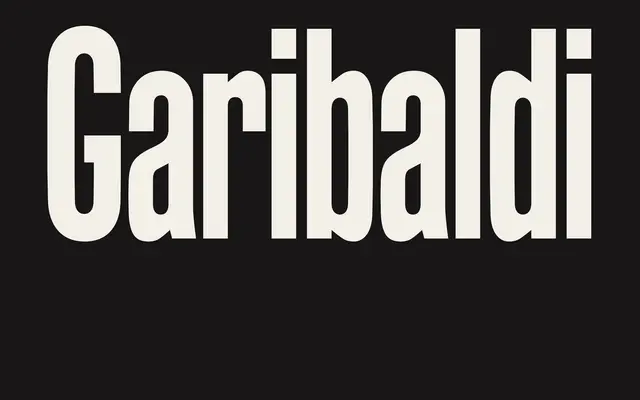
VTC Garibaldi
Vocal Type · Michele Patanè
An extra condensed grotesque sans rooted in the clandestine anti-fascist print culture of wartime Italy, designed by Vocal Type in collaboration with Michele Patanè.
Drawn from the mastheads, flyers and journals of the Italian Resistance, particularly the Brigate Garibaldi's publication Il Combattente (1943–1944), VTC Garibaldi Sans Extra Condensed reproduces the mechanical, sturdy character of wooden headline type used under conditions of secrecy and scarcity. The family is conceived as a broader typographic palette eventually comprising a sans, a serif and a monospace, each reflecting the eclectic range of type available to clandestine printers during the German occupation. The current release focuses on the condensed sans cut, with an extended variant in development.
An extra condensed grotesque sans with a mechanical, wooden-type character drawn from Italian anti-fascist WWII print ephemera; structured and utilitarian in nature.